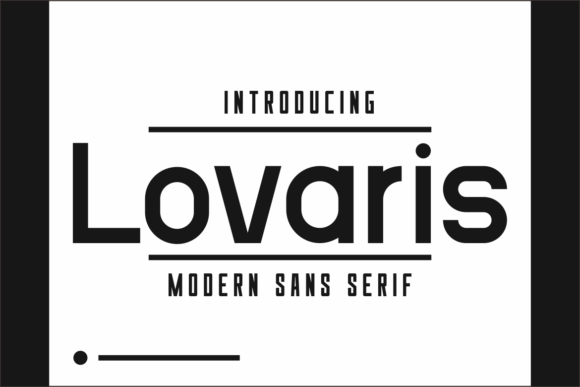
Introducing Lovaris Font, the ultimate sans serif font that exudes boldness and elegance in every letter. Crafted by the skilled hands of maikofarazhatta, this font family is a testament to the power of typography.
Lovaris Font is not just another font; it's a gateway to a world of creative possibilities. Its clean, professional lines and contemporary aesthetics make it the perfect choice for those seeking a modern, minimalist look. Whether you're designing logos, branding materials, or eye-catching headlines, Lovaris Font will elevate your designs to new heights.
This font's versatility knows no bounds. Its ability to adapt seamlessly to various design contexts makes it a favorite among graphic designers and typographers. From sleek and sophisticated logos to vibrant and playful illustrations, Lovaris Font adds a touch of sophistication and charm to every project.
With its simplicity and visual appeal, Lovaris Font is a breath of fresh air in the world of typography. Its uncluttered design ensures that your message shines through without distractions. Whether you're creating marketing materials, website designs, or social media posts, Lovaris Font will capture your audience's attention and leave a lasting impression.
Experience the transformative power of Lovaris Font and unlock your creative potential. Its bold letters and graceful curves will add a touch of magic to your designs, leaving your audience captivated and inspired. Embrace the beauty of simplicity and modernity with Lovaris Font today.